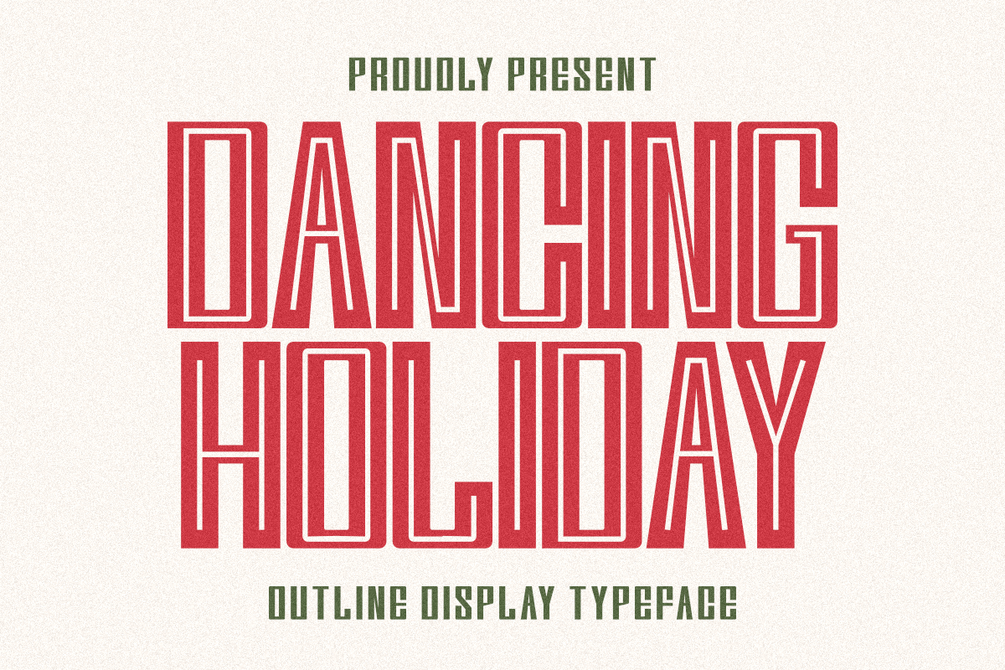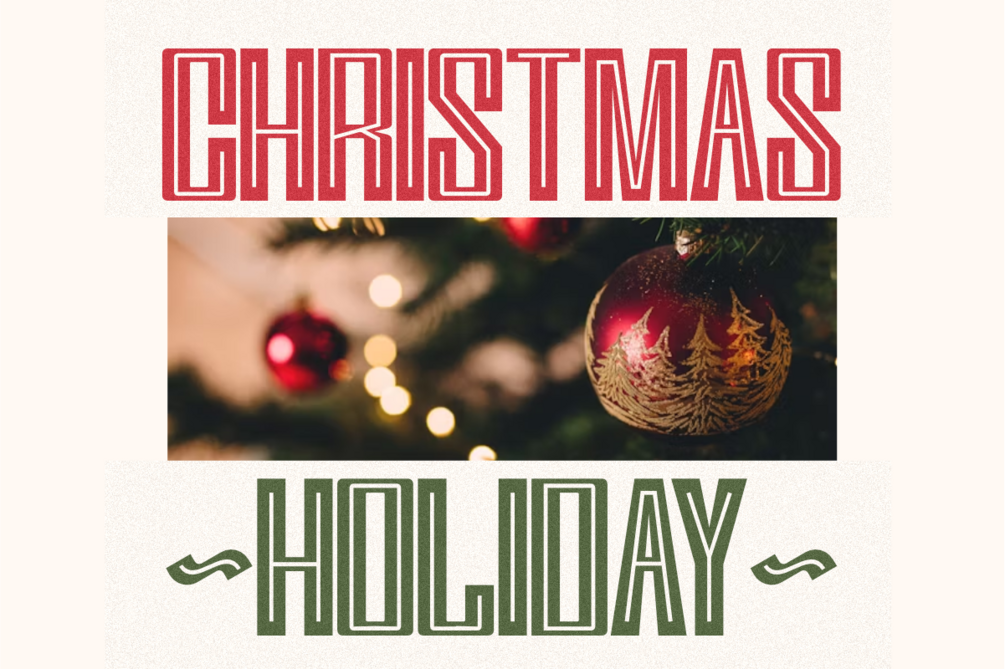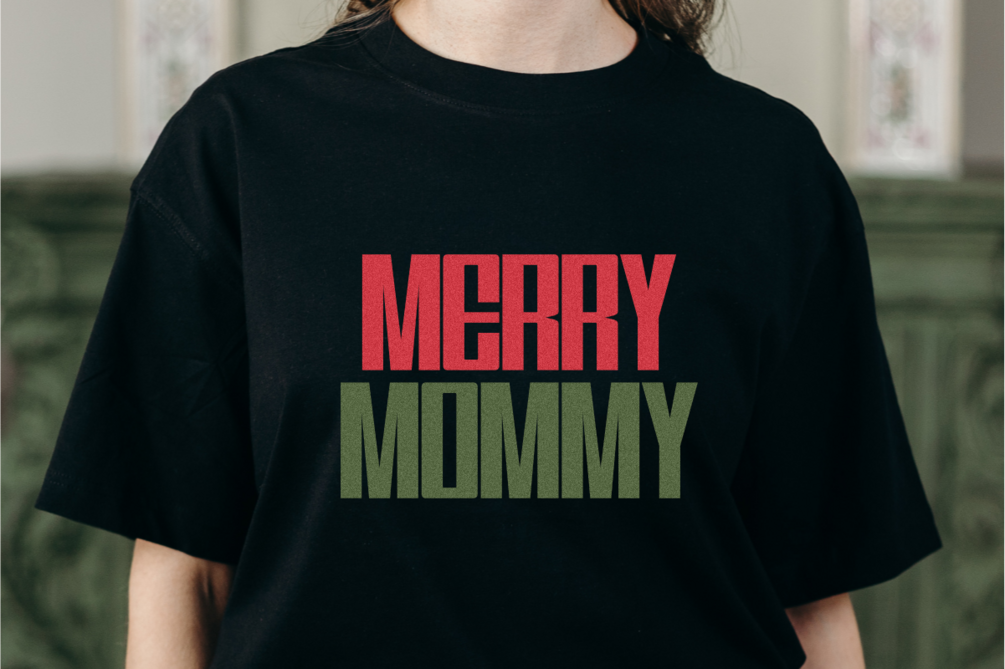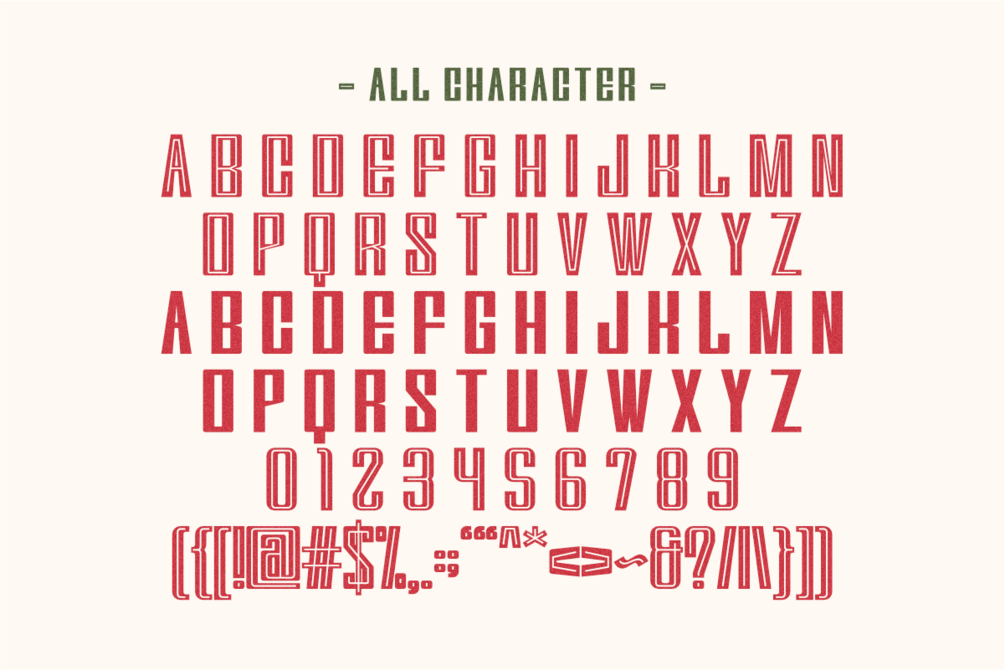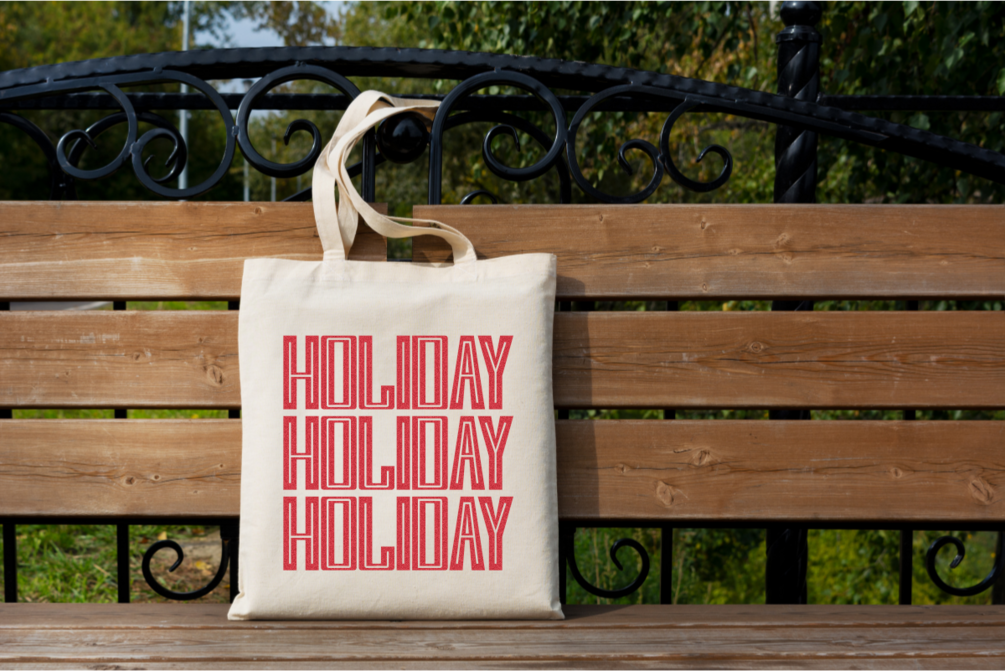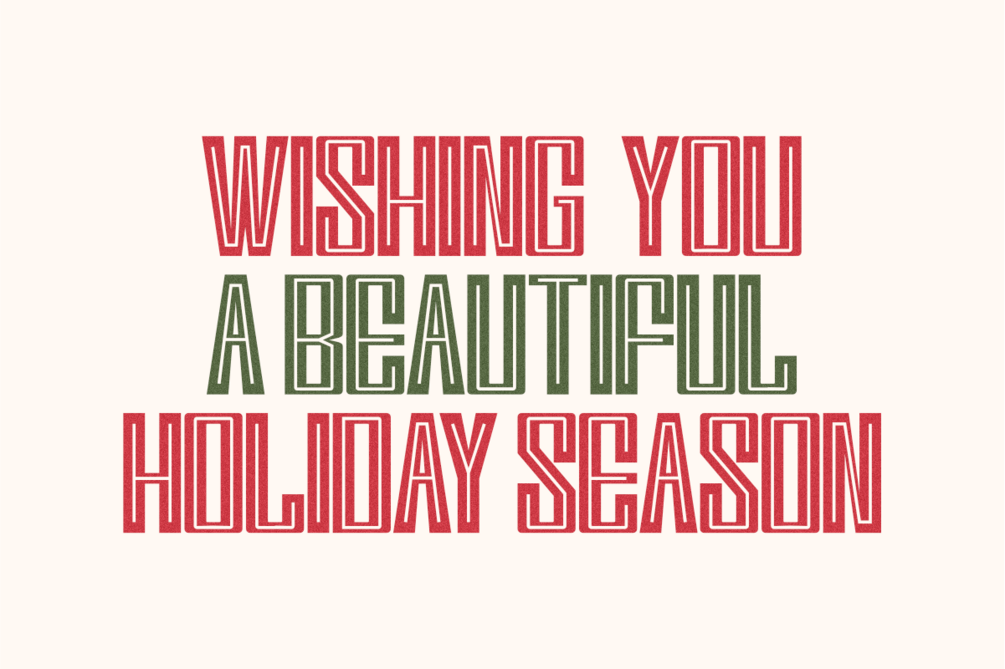
Dancing Holiday - Outline Display Font
Dancing Holiday is a cheerful and striking Outline Display Typeface featuring a retro, ultra-condensed structure. Its tall, double-line style is perfect for bold, layered designs and seasonal apparel. Ideal for Christmas posters, festive branding, and high-impact social media, this unique typeface delivers a charming, nostalgic, and powerful visual identity for all your joyful December marketing and creative projects.